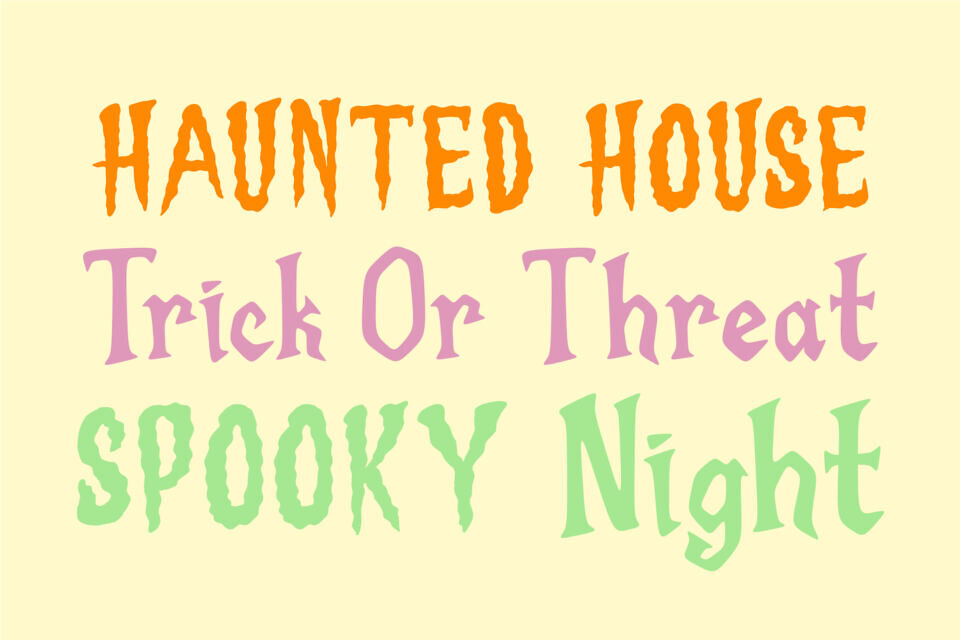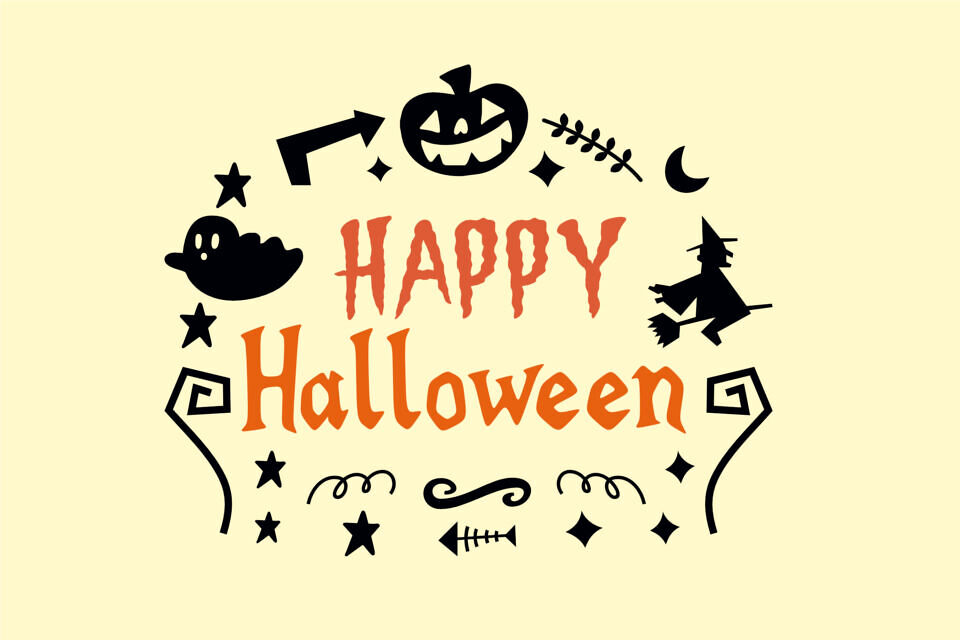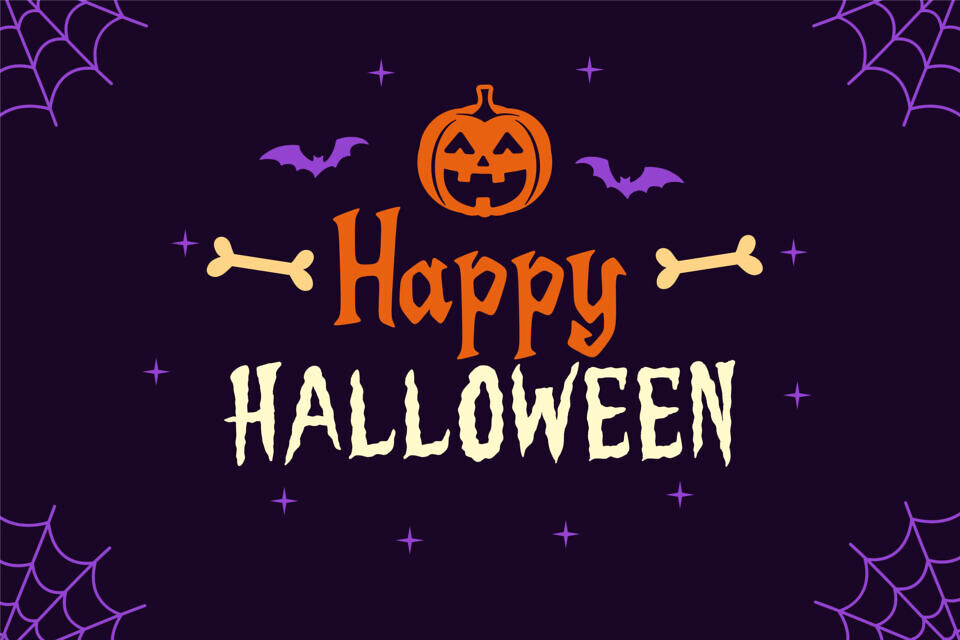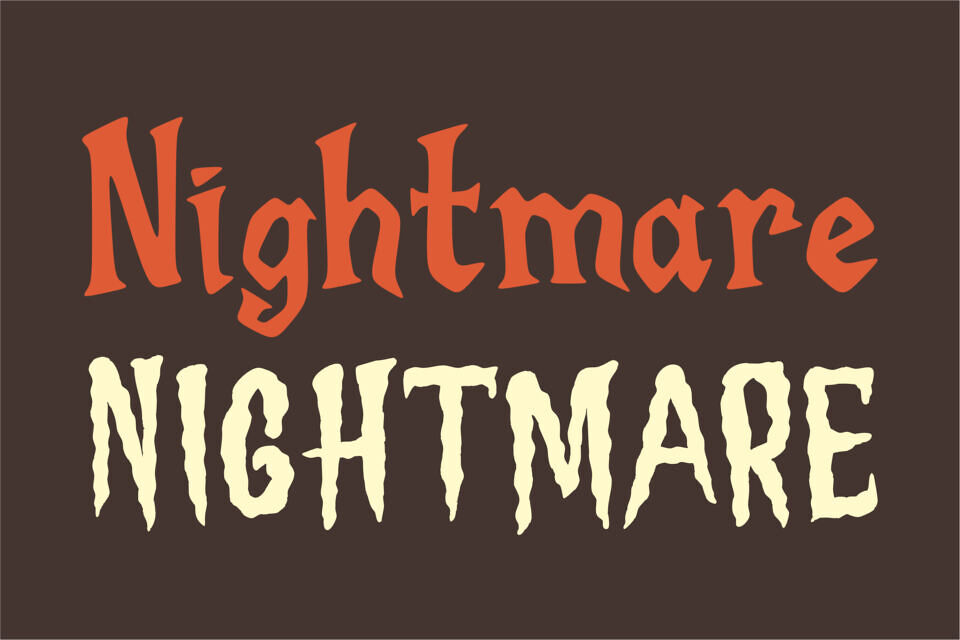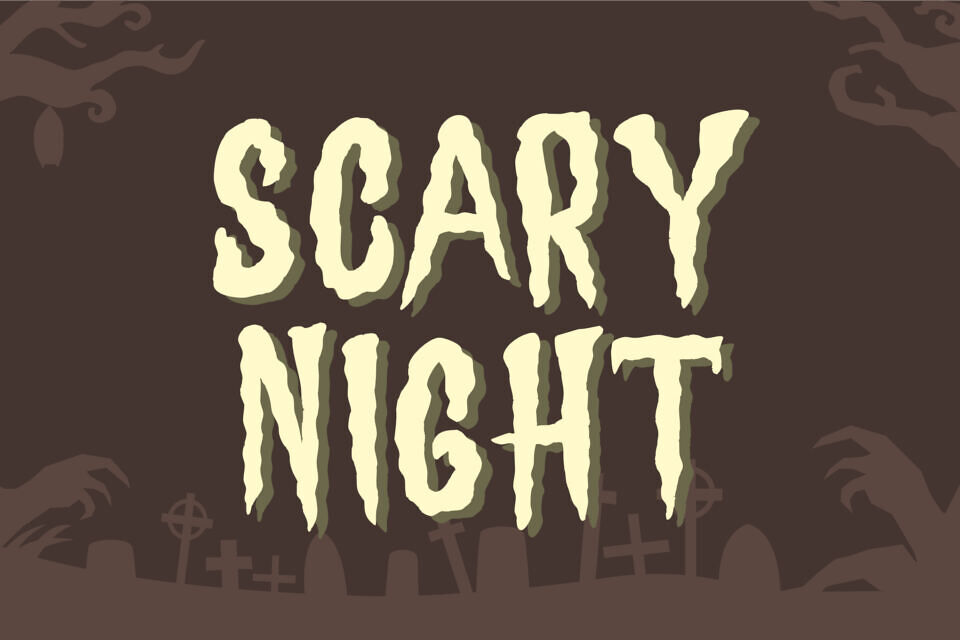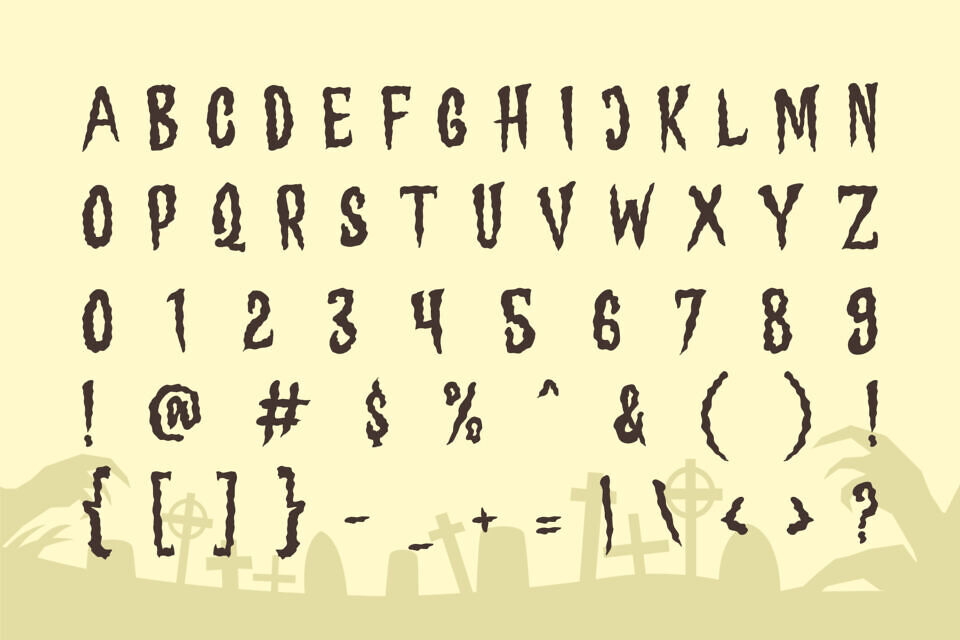
Phantom Shadow Display Font
Phantom Shadow is a spooky Halloween font duo that blends eerie charm with bold, playful style. Featuring jagged strokes and ghostly details, it’s perfect for haunted party invitations, creepy posters, scary movie titles, seasonal crafts, and bold logos.
This chilling yet fun typeface instantly adds fright-night magic to your designs, making it a must-have for Halloween lovers, crafters, and creative designers. With its haunting personality and versatile use, Phantom Shadow captures the true spirit of spooky season in every project.